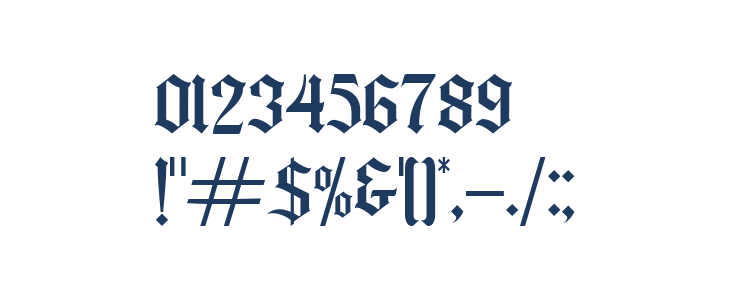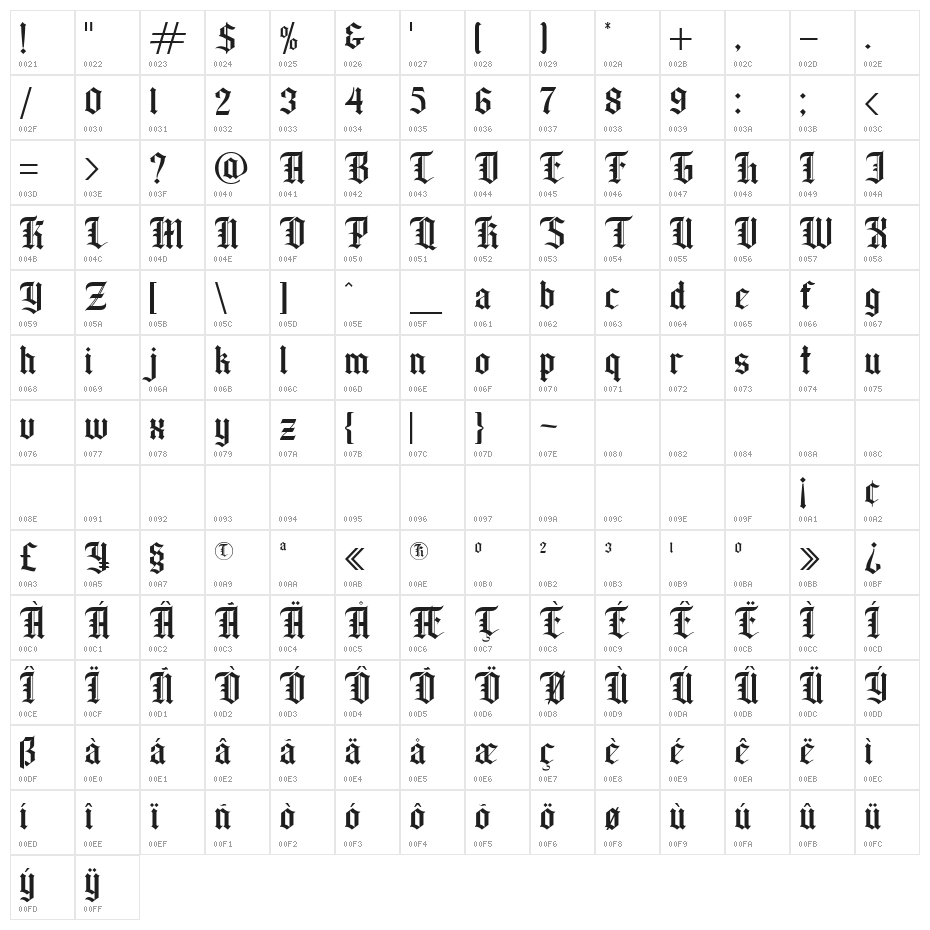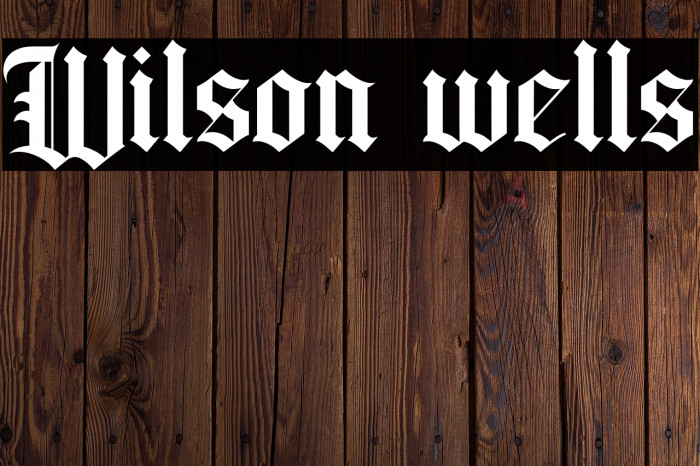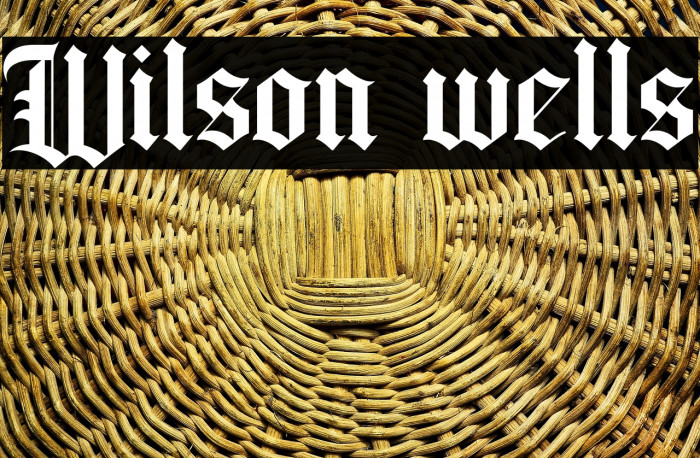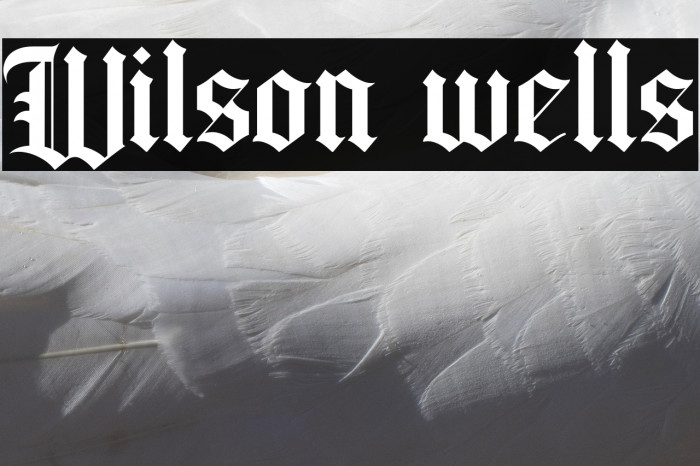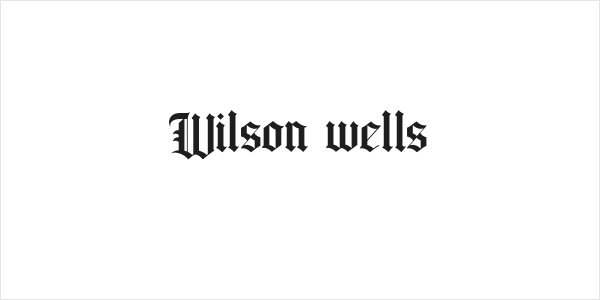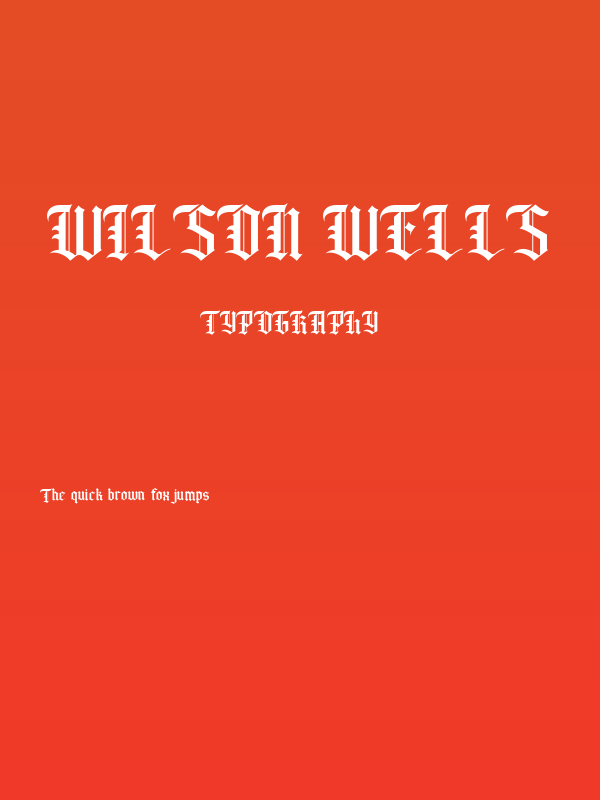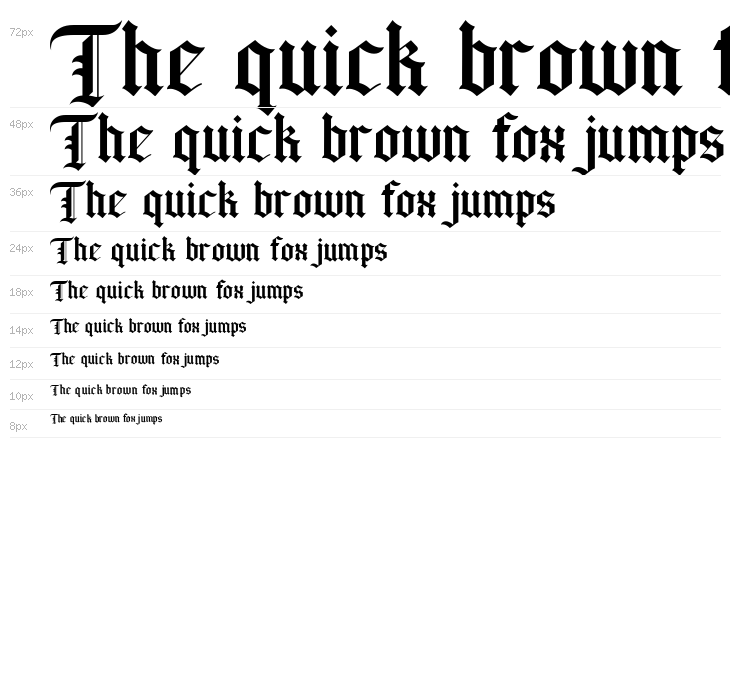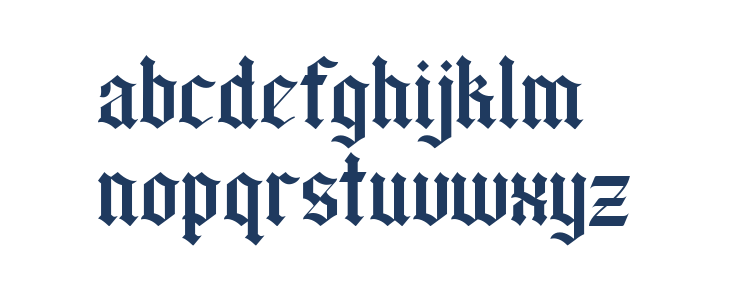
Wilson wells Font
Wilson wells Description
This font embodies a classic blackletter style, characterized by its intricate and ornate letterforms. The uppercase letters feature sharp, angular lines with dramatic flourishes, while the lowercase letters maintain a consistent gothic aesthetic. The numerals are bold and distinct, echoing the medieval script style. Special characters are designed with the same attention to detail, ensuring a cohesive look across all glyphs. The overall appearance is bold and impactful, making it suitable for projects that require a historical or traditional touch.
Overall StyleVintage
Proposed ProjectsIdeal for historical documents, vintage posters, branding for traditional products, or any design needing a medieval touch.